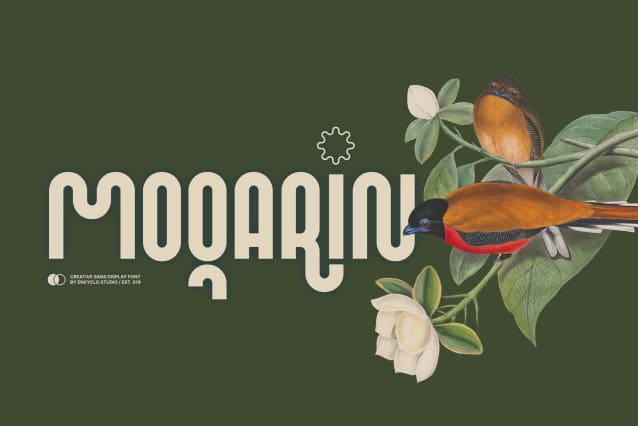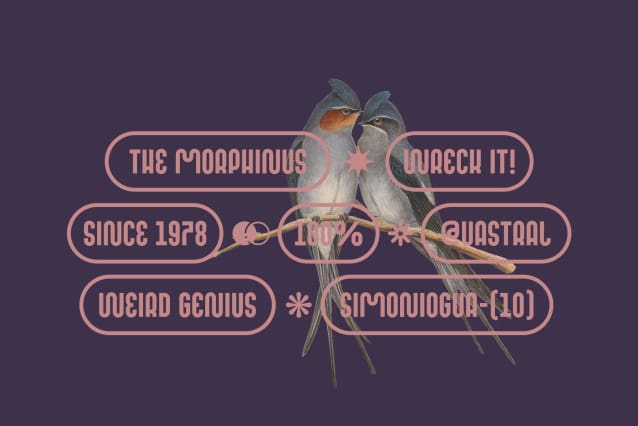
Moqarin Rounded Font
Moqarin Rounded Font is a simple, condensed rounded & playful sans serif font with bold and complex personality. It was purposely crafted to be used in large point sizes, although it doesn’t lose its magic in small point sizes. It is perfect for headline, billboard, magazines, website, titles, poster, branding, and logos. With this beautiful font, absolutely you can make your project stand out from the rest. See the previews above to get some inspiration on how to use them.